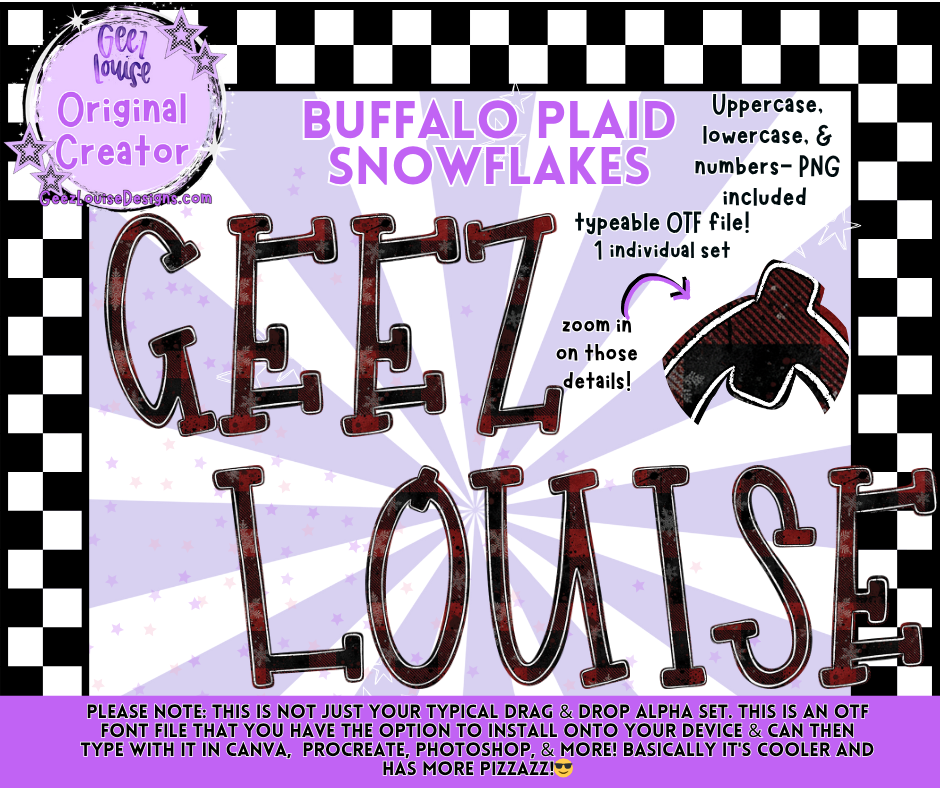
Buffalo Plaid Snowflakes Alpha | OTF Font + PNG Letter Set
Bring classic winter vibes to your holiday projects with this Buffalo Plaid Snowflakes Alpha!
This festive set features a bold plaid pattern layered with subtle snowflake details — perfect for all your Christmas and winter design needs. Whether you’re crafting apparel, signage, or digital designs, this font adds cozy seasonal charm in every letter.
This is a typeable OTF font — not just a drag-and-drop alpha! Use it directly in your favorite design programs for instant plaid perfection with frosty detail.